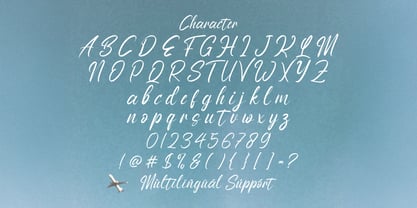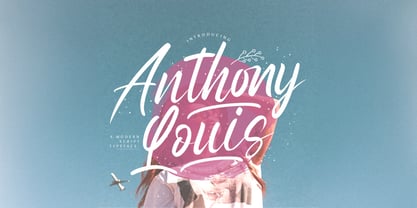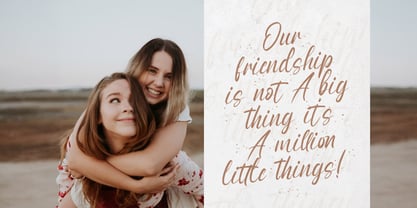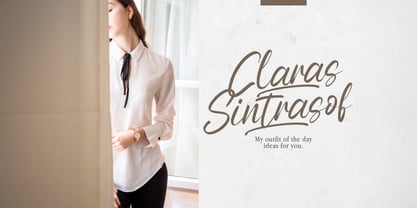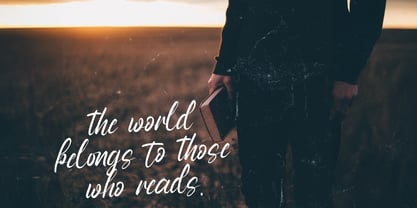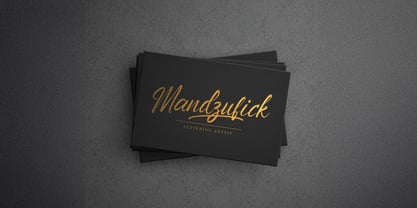
Anthony Louis
von Stringlabs Creative Studio
Die Schriftfamilie Anthony Louis wurde von Virgiawan Listanto entworfen und von Stringlabs Creative Studio veröffentlicht. Anthony Louis enthält 1 Stile.
Anthony Louis is a modern script font that radiates elegance, confidence, and contemporary charm. With its graceful strokes and stylish letterforms, Anthony Louis strikes the perfect balance between sophistication and a relaxed, handwritten feel. Whether you're aiming for timeless class or modern romance, Anthony Louis delivers with style.